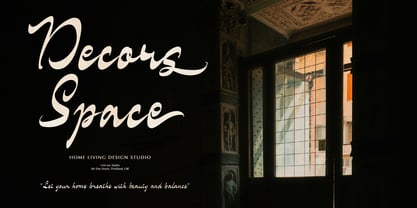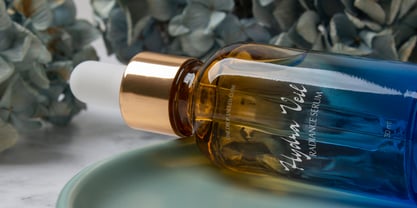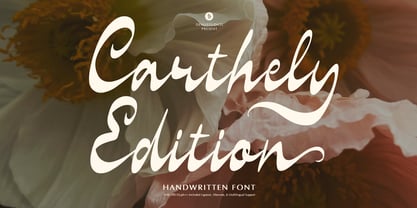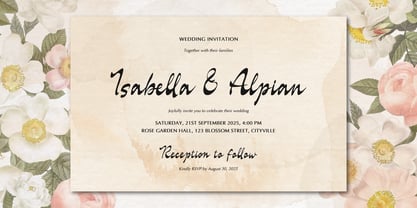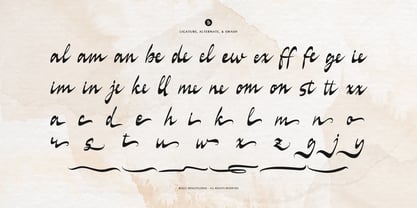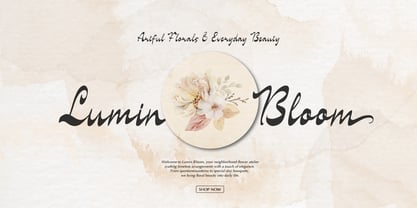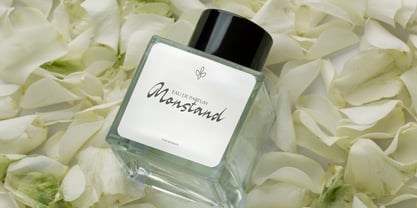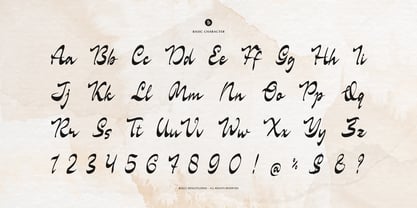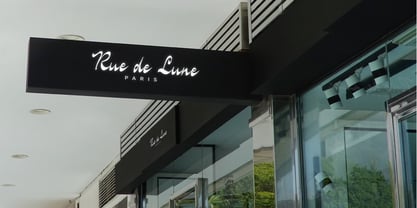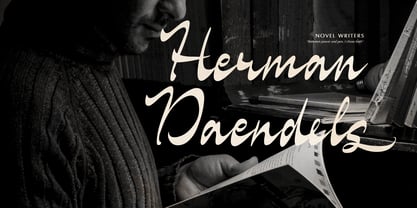
Carthely Edition
The Carthely Edition Font Family was designed by Dede Nugraha and published by Denustudio. Carthely Edition contains 2 styles and family package options.
Carthely Edition | Handwritten Font, from Denustudios, suitable for any projects such as: logos, branding projects, homeware designs, product packaging, mugs, quotes, posters, shopping bags, t-shirts, book covers, name card, invitation cards, greeting cards, label, photography, watermark, special events, and all your other lovely projects that need Handwritten Font a taste.
• Regular and Italic
• Standard glyphs
• Alternate and Ligature
• Fonts include multilingual support